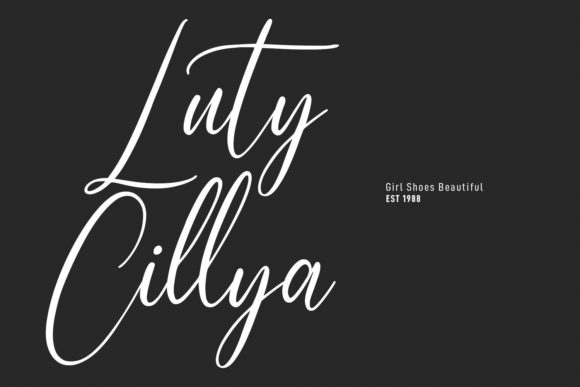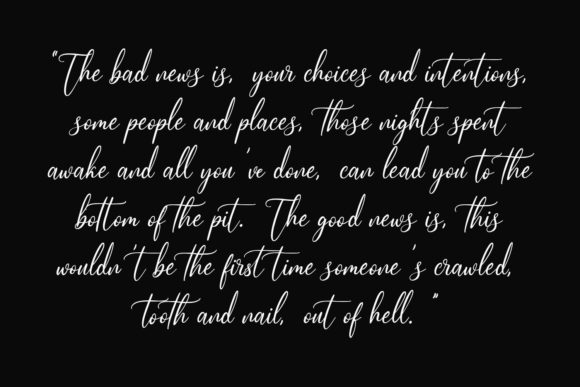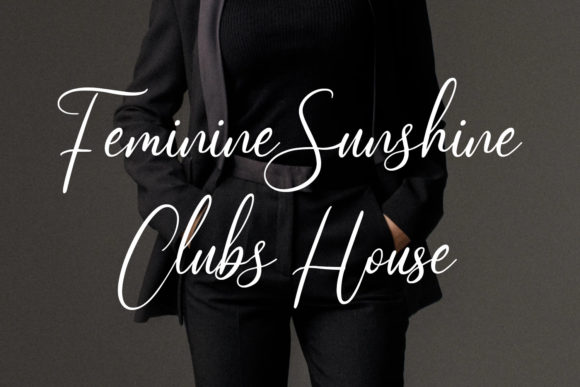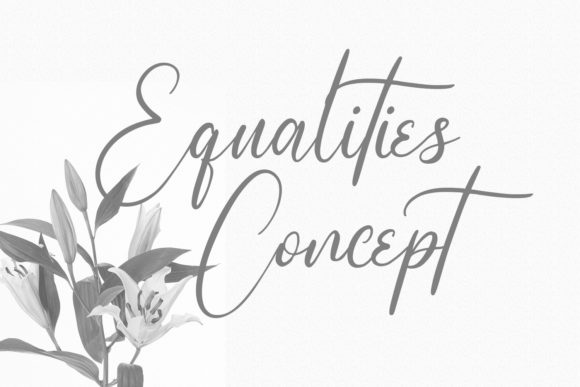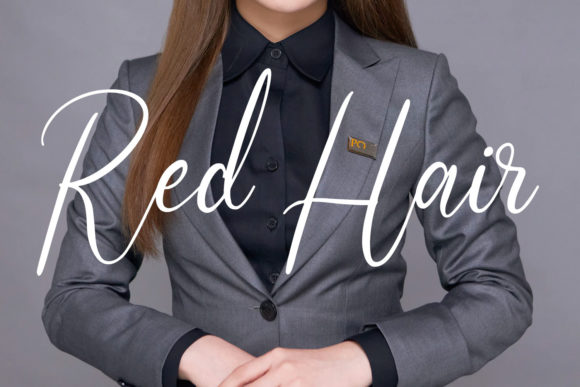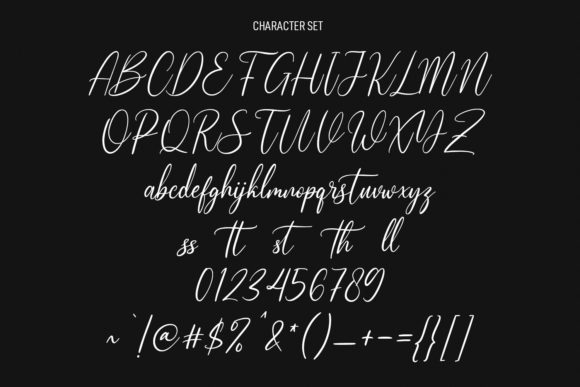
Introduction to Kimberly Dellia Font
As you sit at your desk, surrounded by scribbled notes, half-finished designs, and scattered ideas, the perfect font suddenly pops into your head. You envision a beautiful, elegant script that captures the essence of your creative project. If you’re like many designers, you’ve been searching for that one font that makes your designs stand out. Enter the Kimberly Dellia Font, a stunning script font that’s about to revolutionize your design game.
This high-quality font is more than just a pretty face; it’s a valuable resource for designers looking to elevate their work. With its medium contrast strokes, fun characters, ligatures, and alternates, the Kimberly Dellia Font is perfect for a wide range of projects, from blog posts to logos, branding, and invitations.
Whether you’re working on a free download or a commercial project, the Kimberly Dellia Font is sure to impress. Its transparent background and high-quality design make it a versatile choice for any creative endeavor. Get ready to take your designs to the next level with the Kimberly Dellia Font.
- Perfect for creating a beautiful, handwritten effect in your designs, adding a touch of sophistication and elegance.
Honest Review: Kimberly Dellia Font
I recently came across the Kimberly Dellia Font, a beautiful and elegant script font perfect for adding a touch of sophistication to your creative project. One of the standout features of this font is its transparent background, making it easy to layer and combine with other design elements.
- ✨ High-quality design: The Kimberly Dellia Font has a smooth, refined look that’s perfect for headings, titles, and other prominent text.
- ✨ Versatile: This font is suitable for a wide range of creative projects, from wedding invitations to branding materials.
While the Kimberly Dellia Font is a great addition to any design resource, there are a few limitations to keep in mind:
- ⚠️ Limited character set: The font only includes a limited number of characters, which may not be suitable for longer blocks of text.
- ⚠️ Not ideal for body text: Due to its script nature, the Kimberly Dellia Font may not be the best choice for large blocks of body text.
Overall, I’m impressed with the Kimberly Dellia Font and would recommend it to designers looking for a high-quality, elegant script font. While it may have some limitations, it’s a great resource for adding a touch of sophistication to your creative project.
Common Use Cases for Kimberly Dellia Font
The Kimberly Dellia Font is perfect for a variety of design projects, including logos, business cards, brochures, and social media graphics. Its high-quality design and transparent background make it a great choice for creative projects.